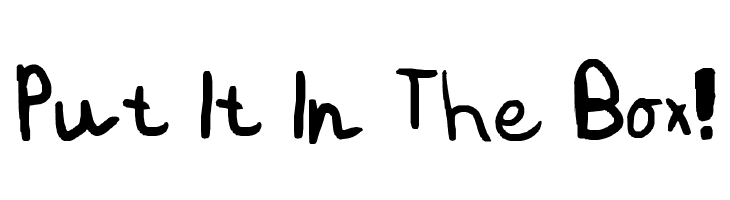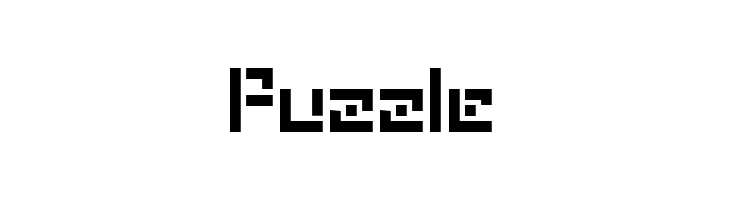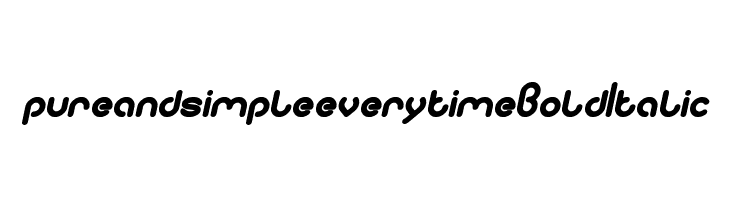
A playful, handwritten font with an informal and friendly style.
A whimsical font with characters integrated into computer-themed designs.
A bold, dynamic script font with a handwritten appearance.
A pixelated, blocky font with a retro digital aesthetic.
A playful, puzzle piece-themed font with bold outlines and interconnected characters.
A bold, playful, and irregular font with a hand-drawn, artistic style.
A playful font with characters shaped like jigsaw puzzle pieces, ideal for fun and creative projects.